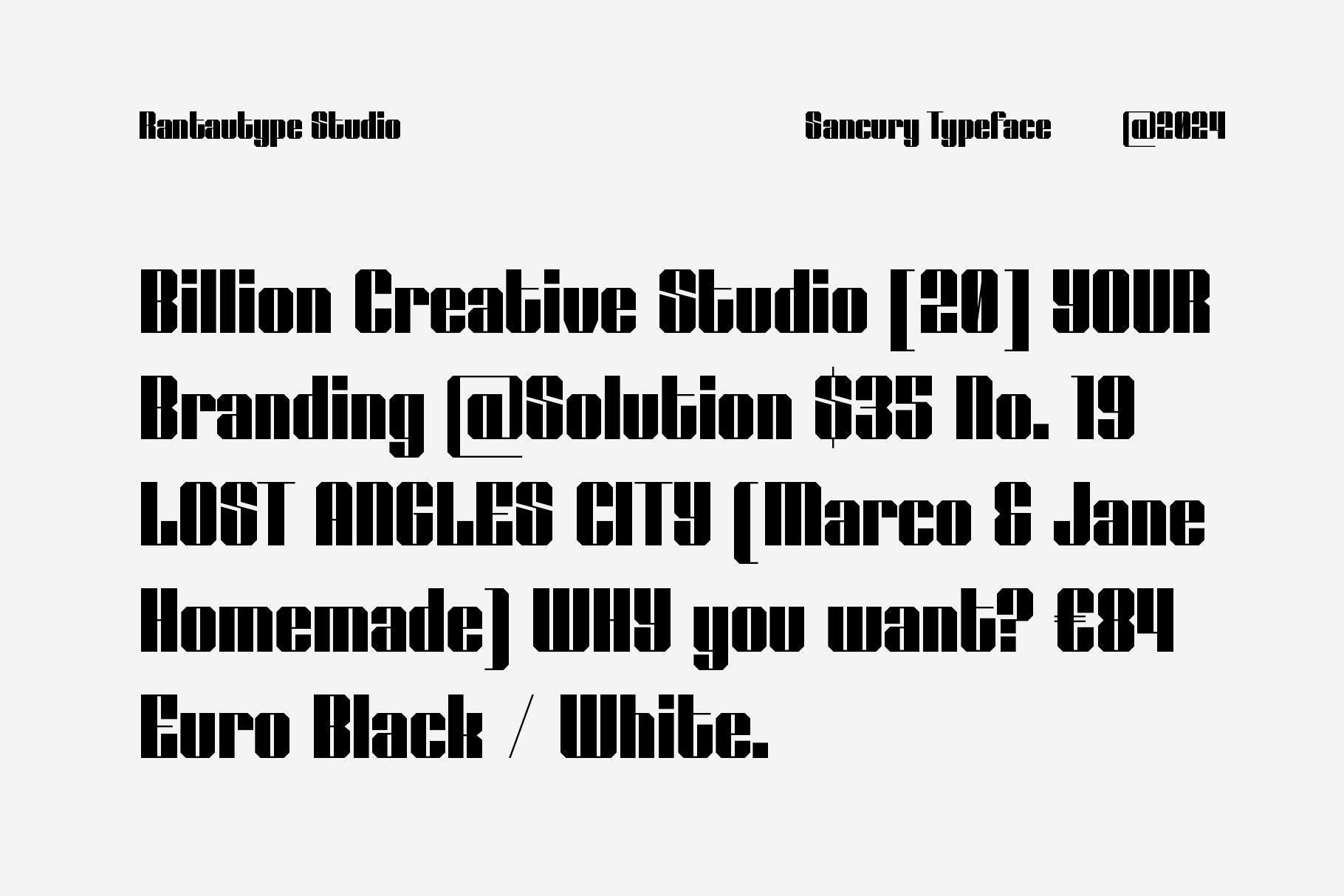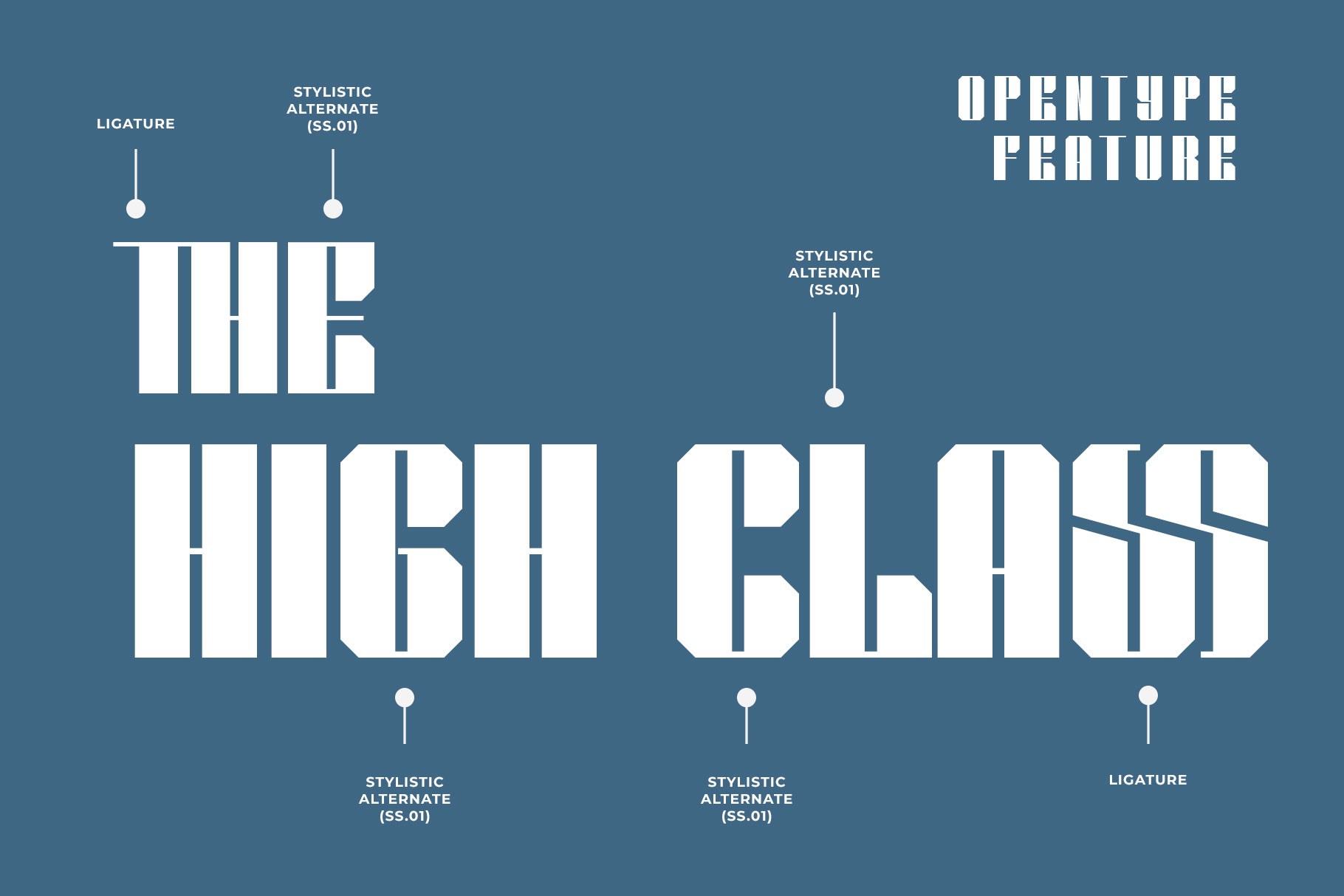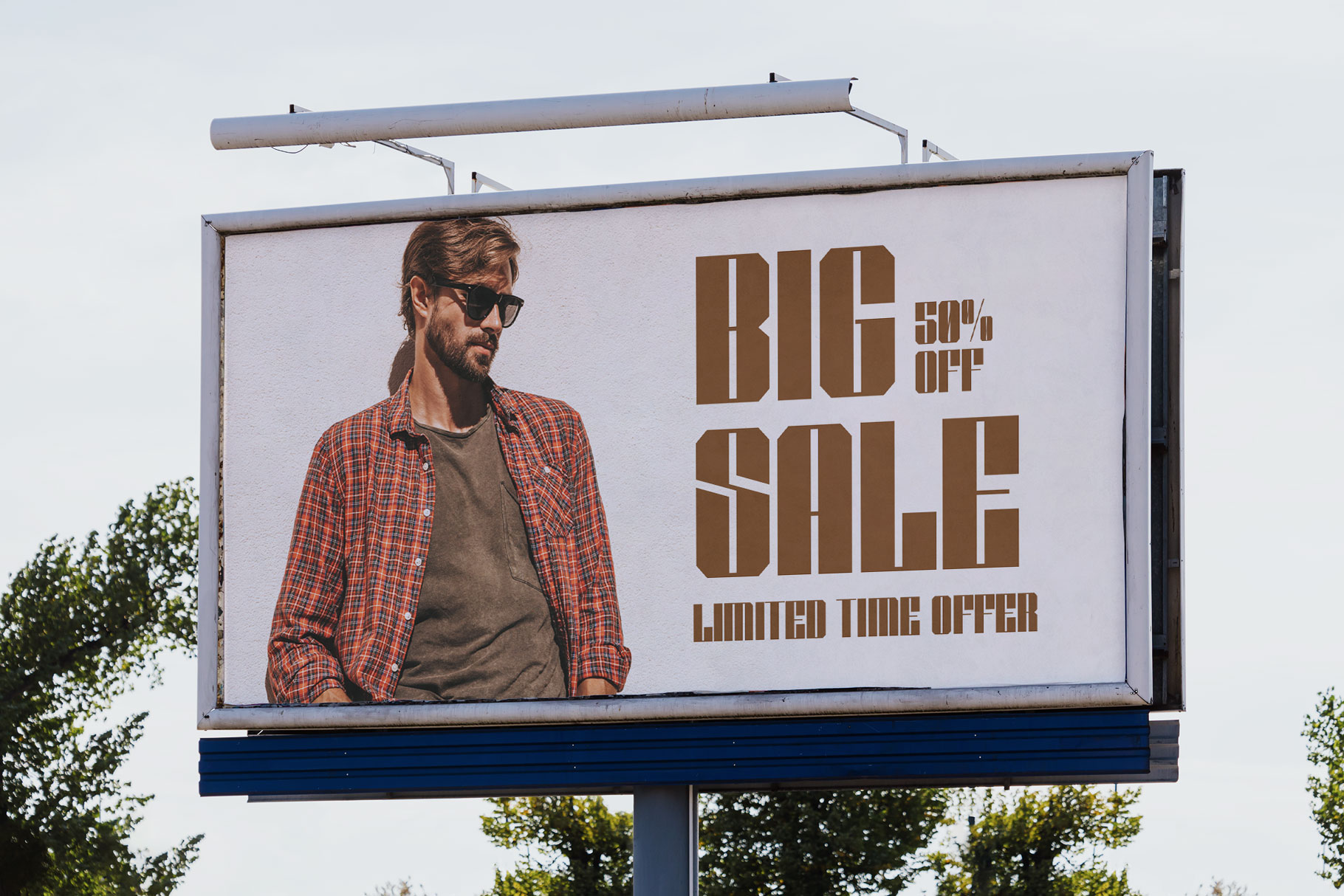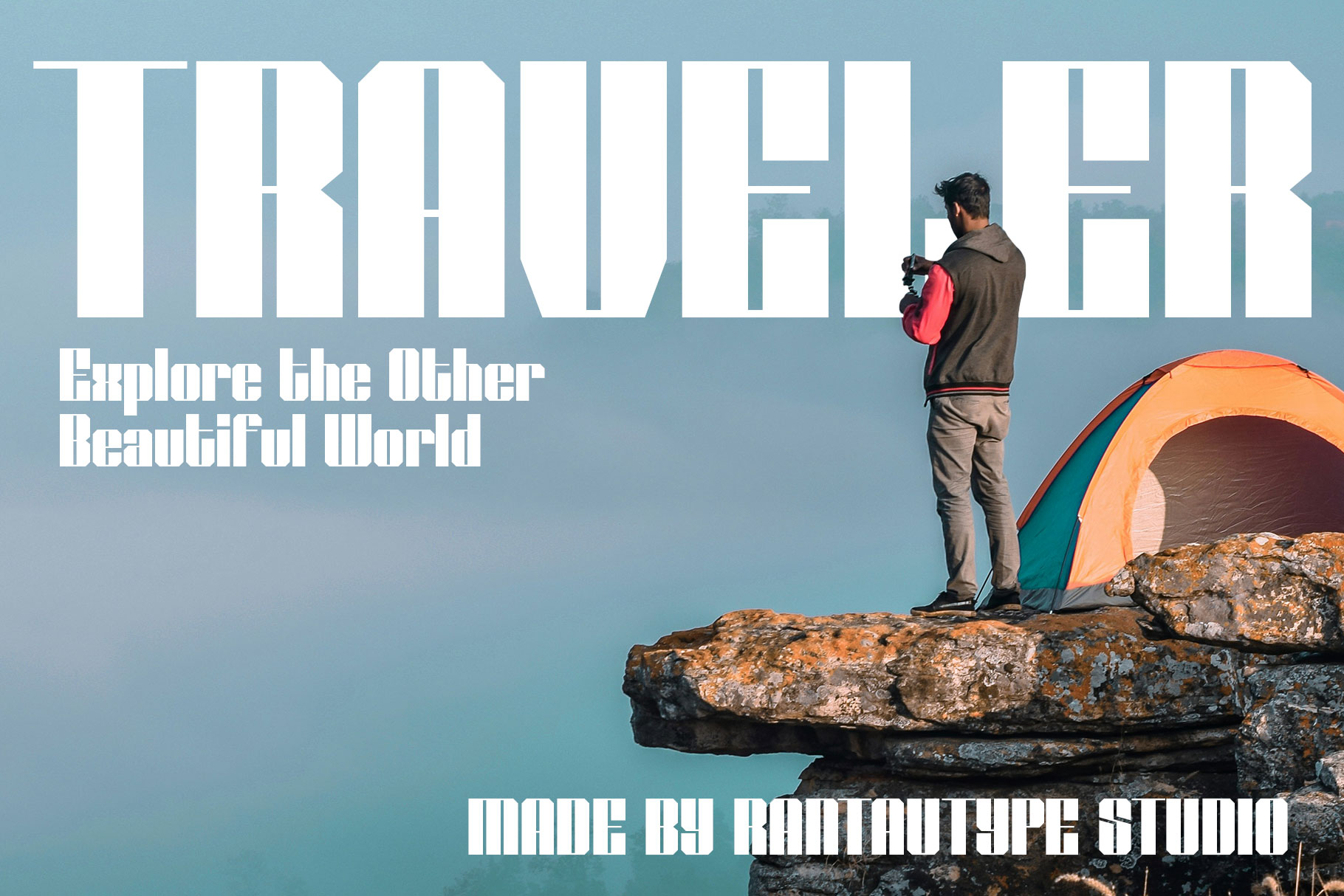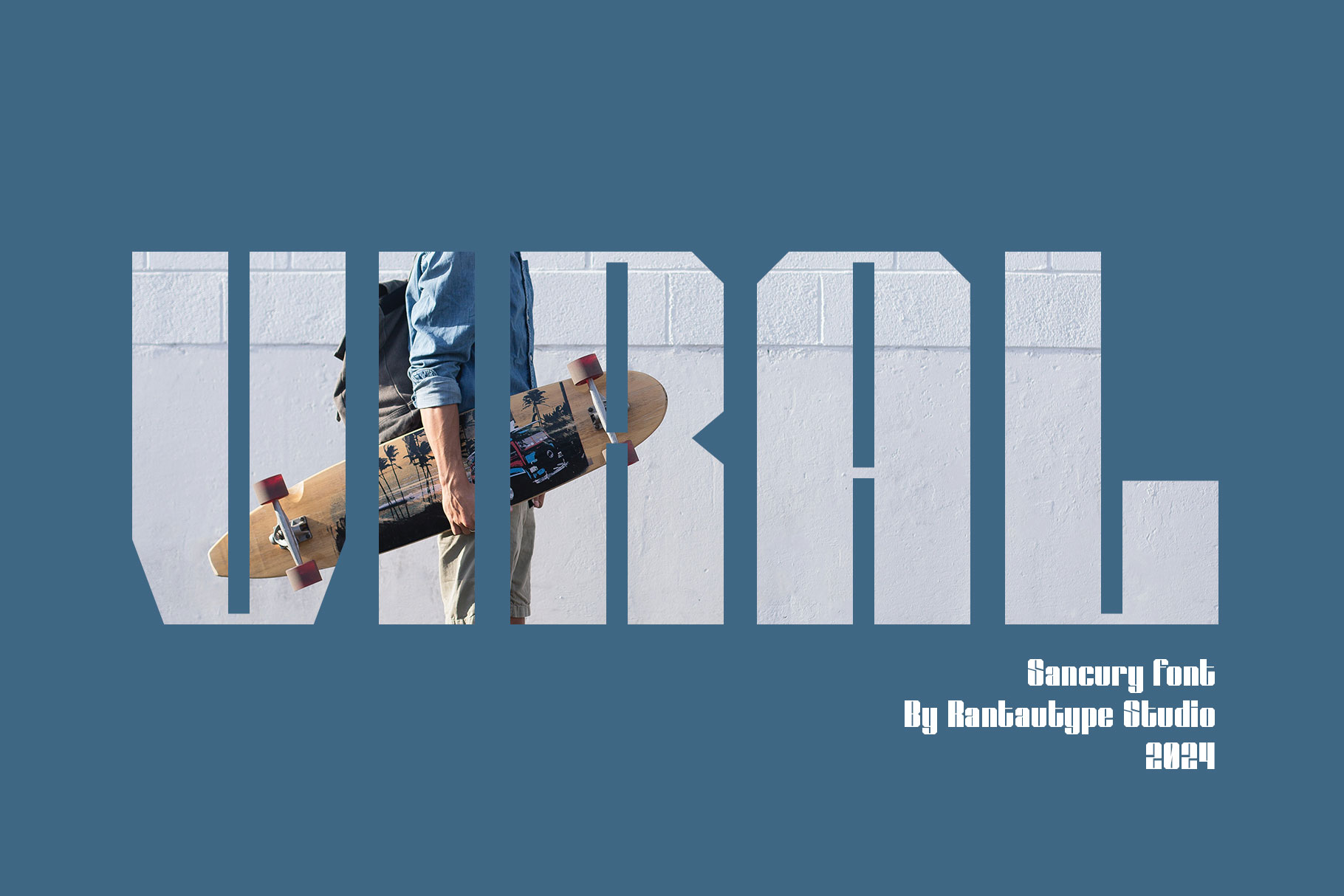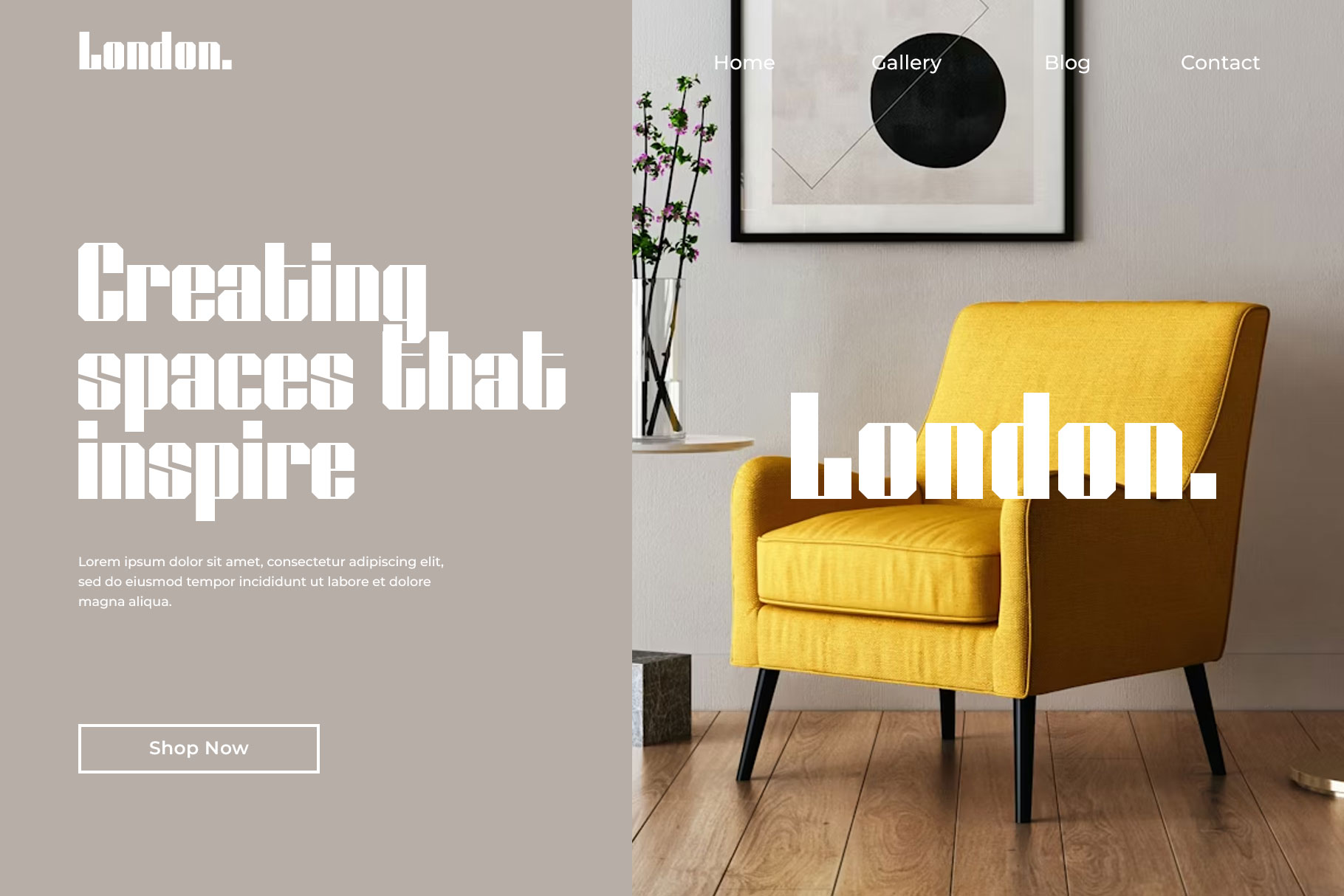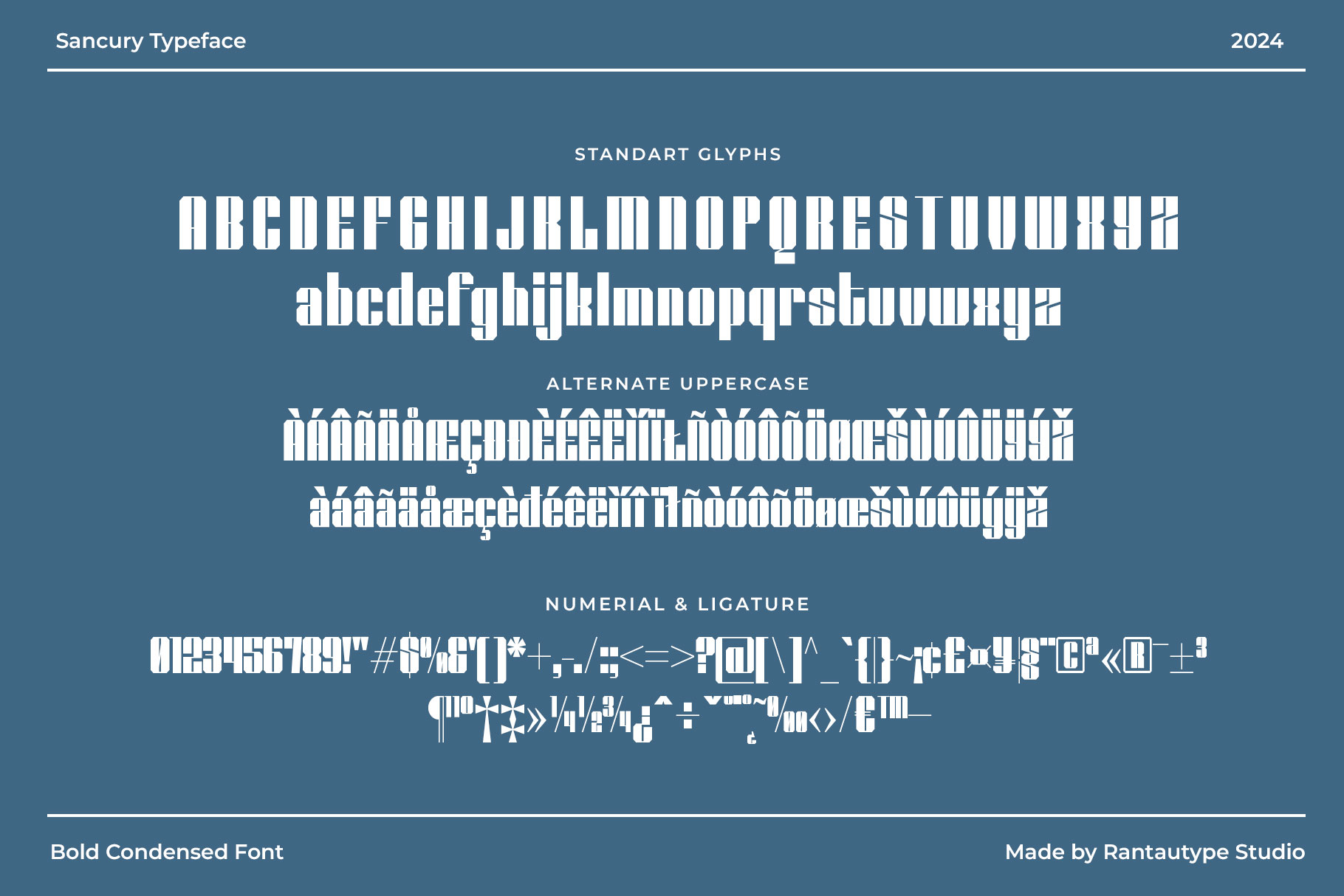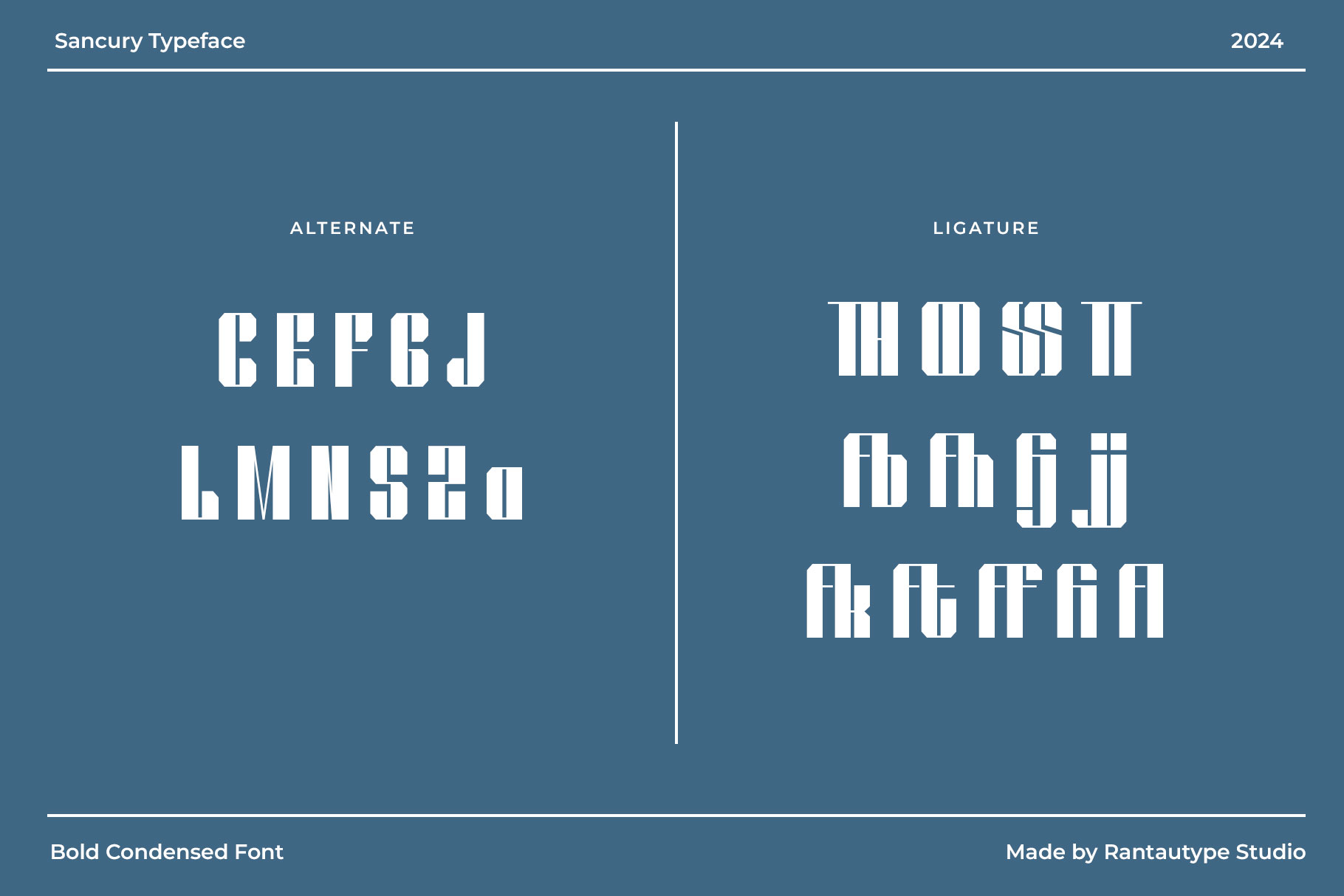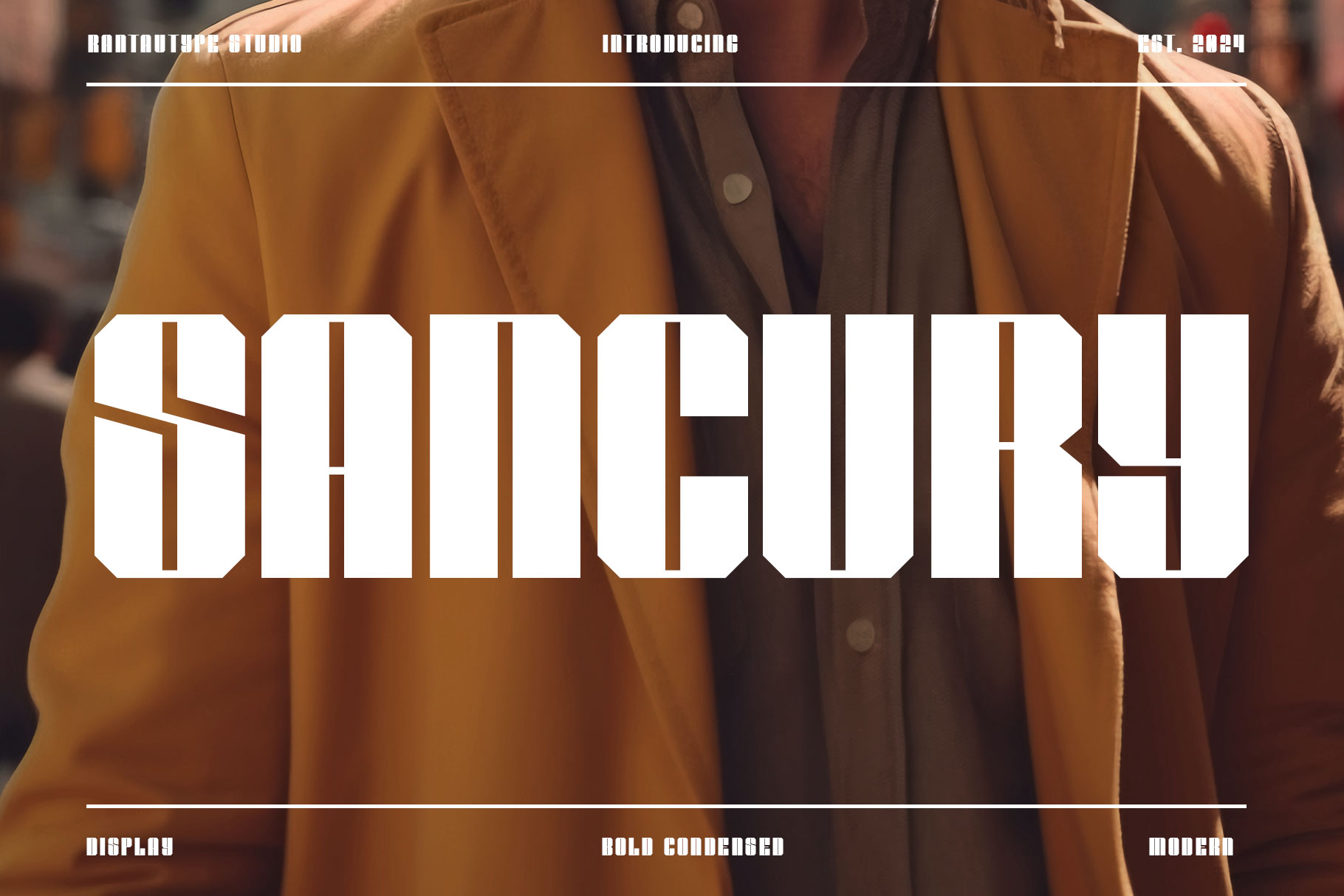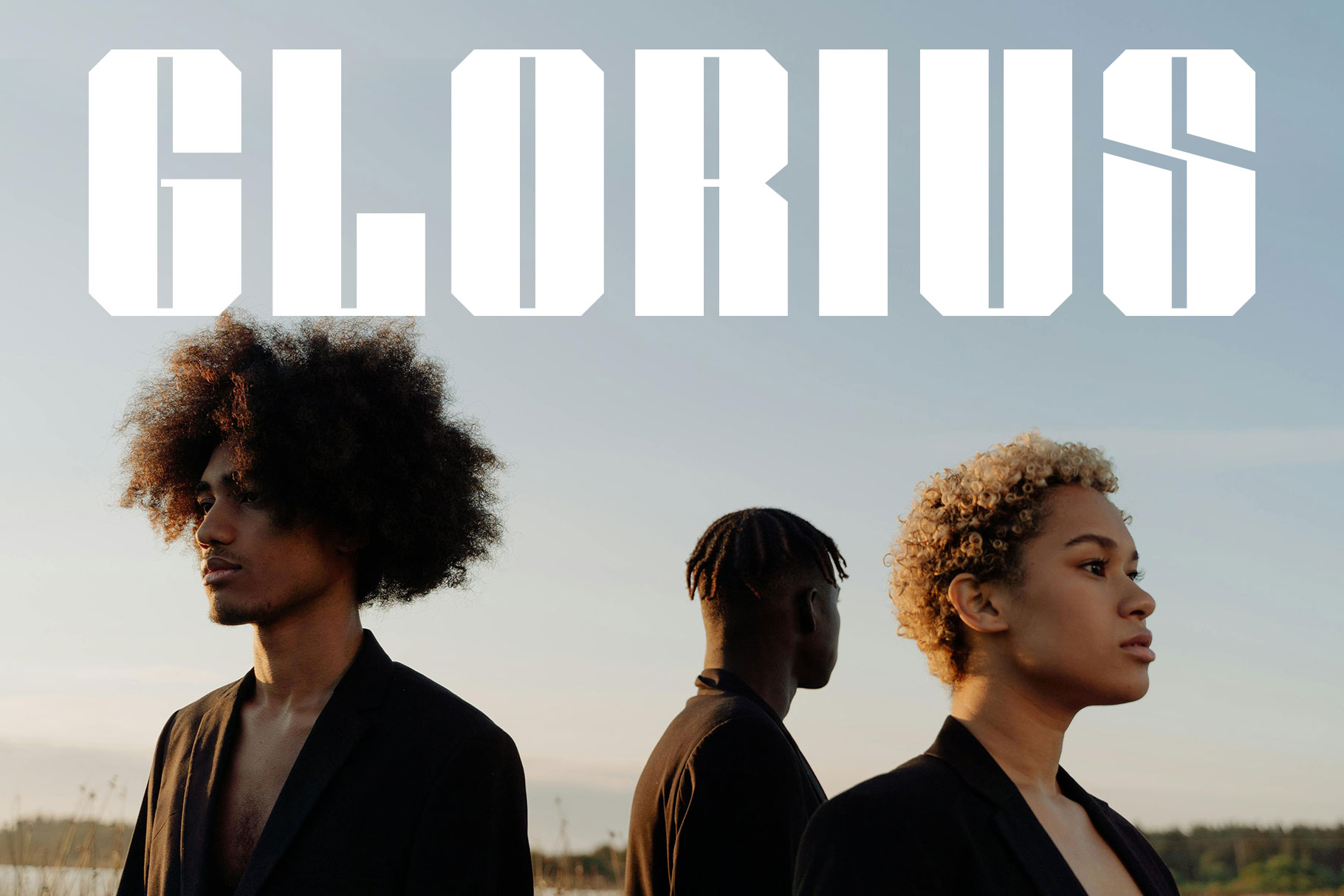
Sancury Modern Bold Font
Sancury is bold sans serif typeface with modern design style. We make this font look tightly, clean and minimal white space to appear modern. Sancury come with alternate, ligature and support multilangual character to support you design project.
Sancury is a perfectly choice for any creative endeavor, chic, lifestyle design such as logos, advertisements, watermark on photography, stationery, branding project, display and magazine, invitation, corporate brand, product design, label, business project and many other project wiht bold taste.